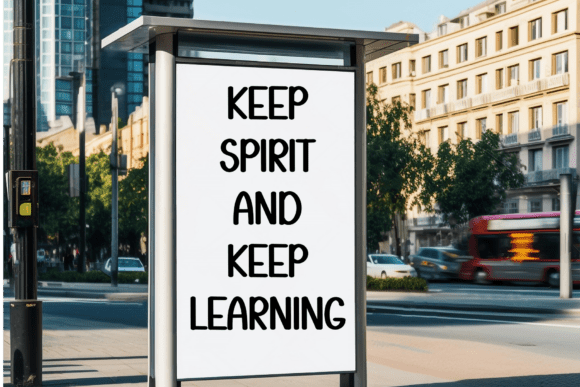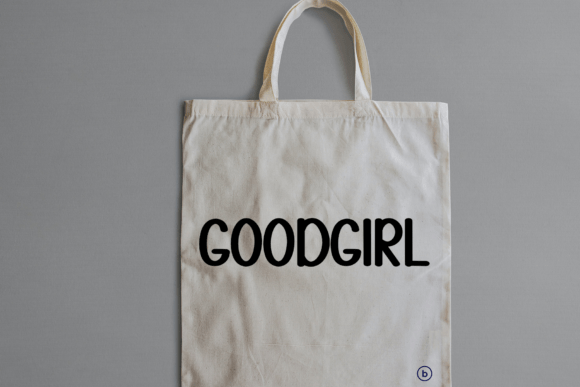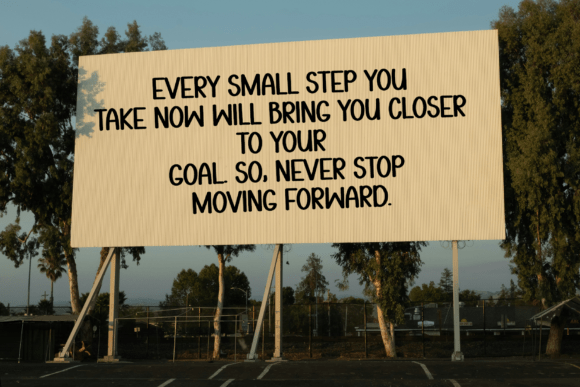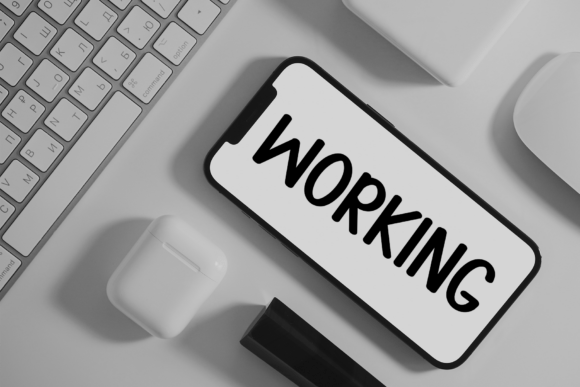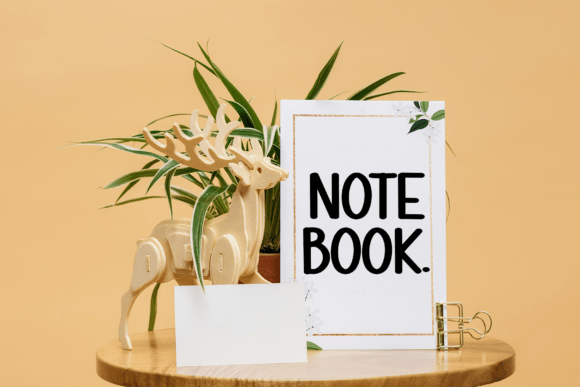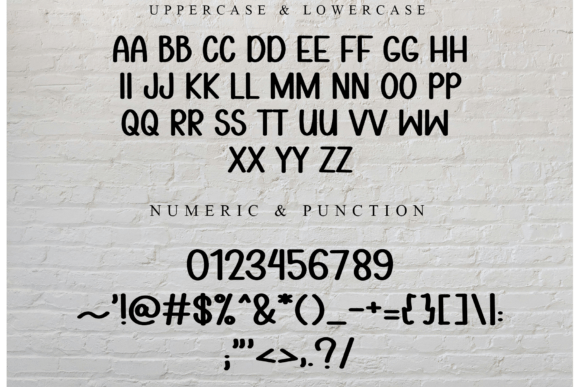
Deck the Halls with Holiday Cheer: Introducing Homework Font
Do you remember the excitement of decorating the tree, baking cookies with loved ones, and sending out festive cards to friends and family? As a designer, you know that the holiday season is the perfect time to get creative and add a touch of magic to your projects. Whether you’re designing greeting cards, gift tags, or holiday-themed projects, you’re always on the lookout for the perfect font to capture the spirit of the season.
Enter Homework Font, a festive and merry typeface that’s sure to bring a smile to your clients’ faces. With its decorative elements and whimsical flair, this font adds a touch of enchantment to your designs, making it a valuable addition to any designer’s toolkit. Its PUA encoding means you can access all of the amazing glyphs and ligatures with ease, making it a breeze to create stunning holiday-themed designs.
Let Homework Font bring a dash of holiday cheer to your typography and make this season one to remember.
- Unique Characteristics: The font features a unique blend of modern and classic elements, making it ideal for educational and academic purposes.
Homework Font Review
First off, I want to say that I’m a big fan of the aesthetic that Homework Font brings to the table ✨. The combination of handwritten and digital elements creates a unique and eye-catching look that’s perfect for educational or creative projects. The font’s organic feel and subtle imperfections make it feel like it was written by hand, which adds a touch of personality to any design.
One thing that really stands out about Homework Font is its versatility ✨. It works well in a variety of contexts, from headings and titles to body text and even logos. The font’s range of weights and styles makes it easy to customize and adapt to different design needs.
While Homework Font is a great addition to any designer’s toolkit, there are a few limitations to be aware of ⚠️:
- Some characters, such as the ampersand (&) and the dollar sign ($), may not be as smooth or consistent as they could be.
- The font may not be as legible at very small font sizes, which could be a issue for designs that require a lot of fine print.
- There may be some compatibility issues with older software or systems, so be sure to test it out thoroughly before using it in a real-world project.
Overall, I think Homework Font is a great choice for designers who want to add a touch of personality and whimsy to their work. With its unique aesthetic and versatility, it’s a great addition to any design toolkit.
The Homework Font is commonly used for:
- Creating educational materials, such as worksheets, quizzes, and assignments.
- Designing study guides and textbooks.
- Developing online courses and tutorials.
Alternatives to Homework Font for Designers
1. Merriweather
Merrriweather is a classic serif font that is often used in book publishing and academic settings. It is a great alternative to Homework Font when you want to convey a sense of tradition and formality. Unlike Homework Font, Merriweather has a more elegant and refined feel, making it suitable for a wide range of design projects.